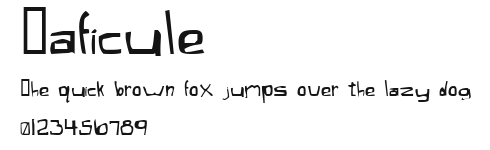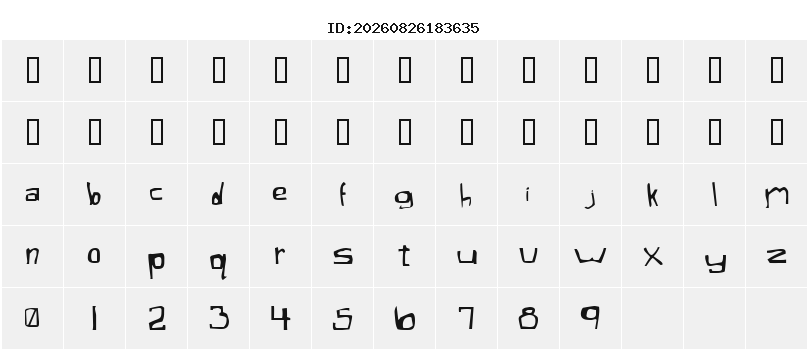
Xaficule Preview
• Font Name: Xaficule
• Font Style: Oddtype
• Font ID: Macromedia Fontographer 4.1 Xaficule Oddtype
• Full Font Name: Xaficule Oddtype
• Version: Macromedia Fontographer 4.1 1/7/98
• PostScript Name: XaficuleOddtype
• Character Count: 37
About Xaficule.ttf
Xaficule.ttf is a modern, elegant sans-serif font designed for ultimate readability and visual harmony. Perfect for branding, headlines, web design, and print materials.